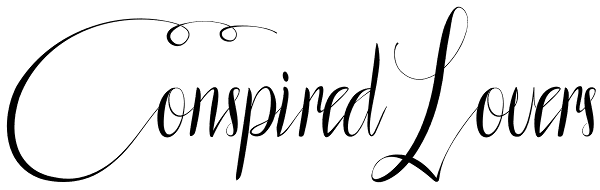
Conspired Lovers
Conspired Lovers is based on five years of love-letter writing. A font to capture the intentions of love letters more than any other font. How did the Project start? In the last five years I wrote love letters with two persons. I became used to the...